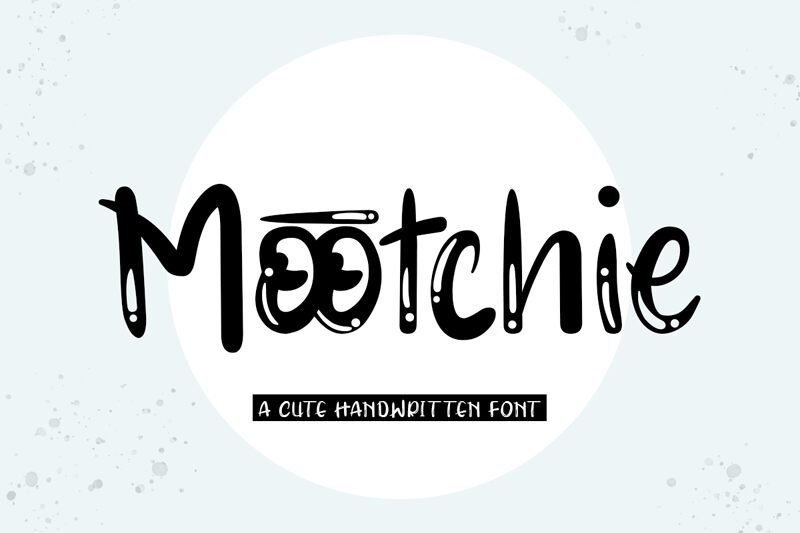
Mootchie
Mootchie font by Kong Font is a playful display typeface that exudes a relaxed and approachable mood. Its cartoon-inspired design makes it an ideal free font for projects needing a whimsical and casual vibe. This friendly, informal style offers an emotional impact akin to hand-drawn or DIY aesthetics.
Perfect for children's book covers, playful branding, blog graphics, party invitations, coffee shop branding, event posters, greeting cards, lifestyle blogs, social media designs, and merchandise design. Whether you're crafting a logo or designing store signage where friendliness is paramount—Mootchie has you covered!